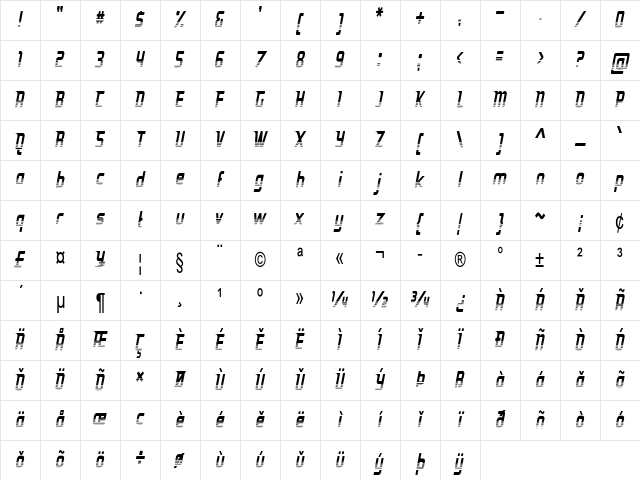
Borelo Condensed Regular
Style: Condensed Regular
Borelo Family
Borelo Condensed Regular
Complete Borelo Condensed Regular glyph index. Displaying only characters natively supported by Borelo Condensed Regular font.
Design Context for Borelo
Borelo is a composed and adaptable typeface that performs quietly and consistently across a wide range of design contexts. Its narrow stance lets it pack a punch even in space-constrained designs.